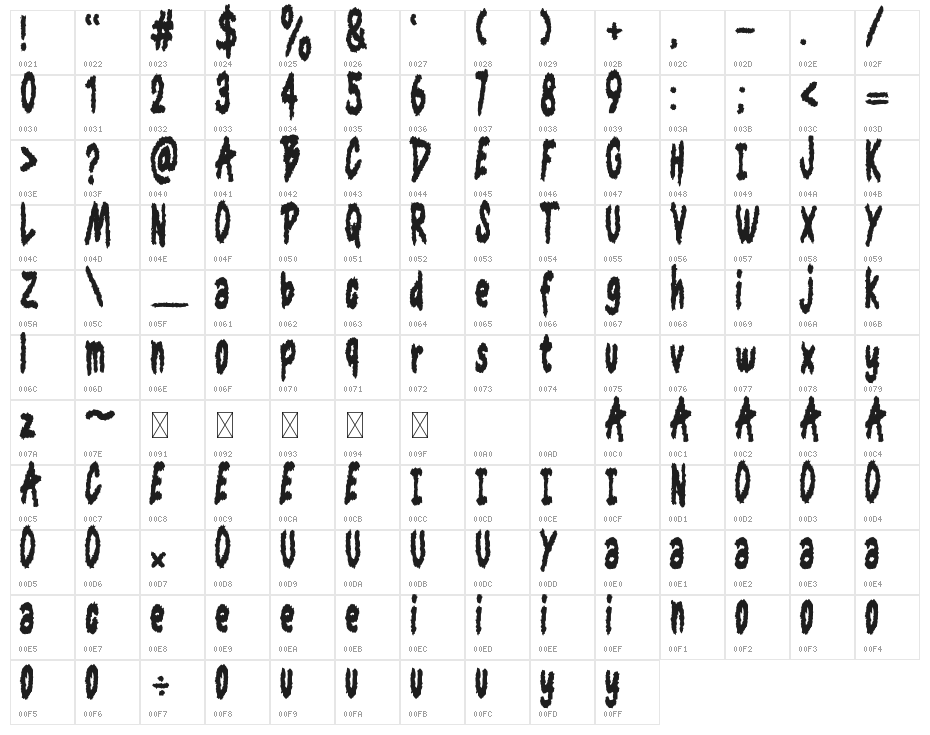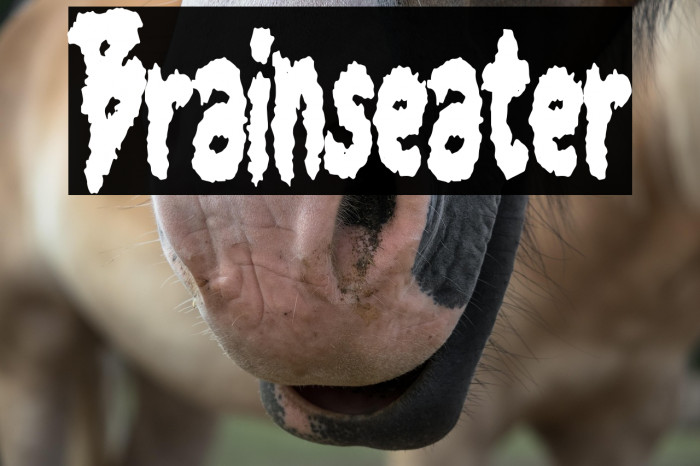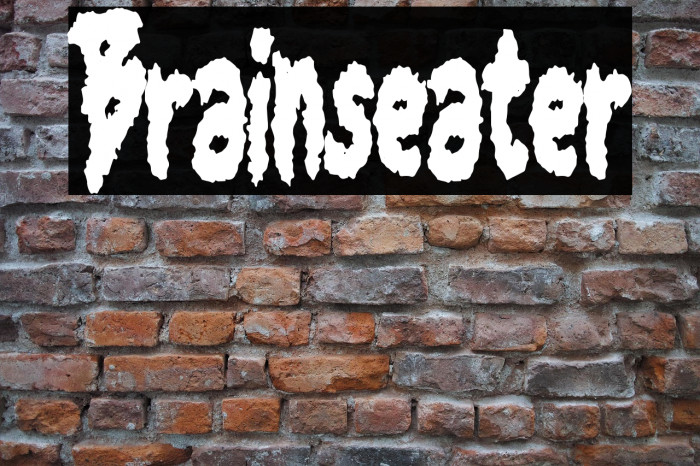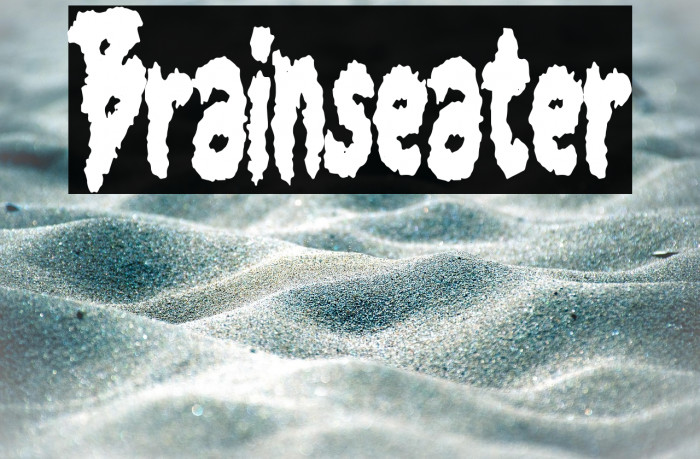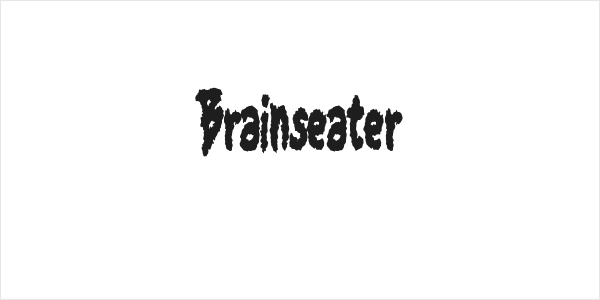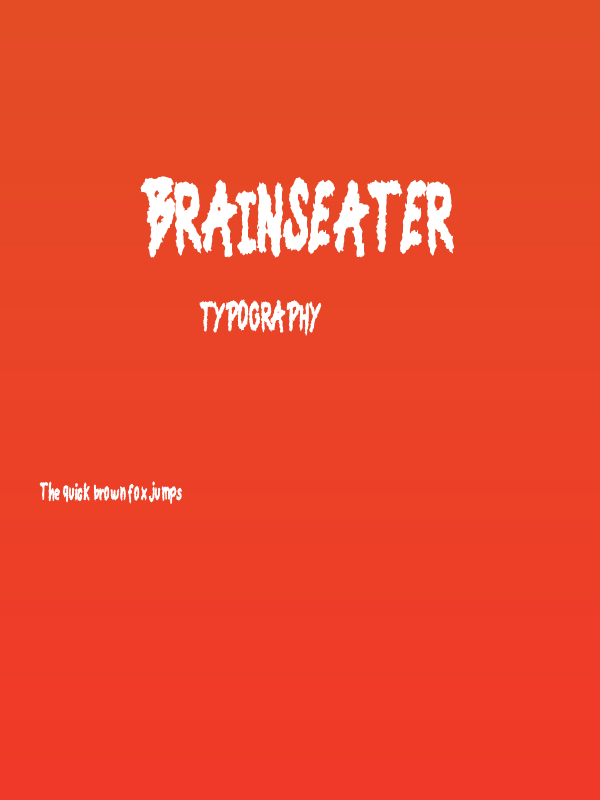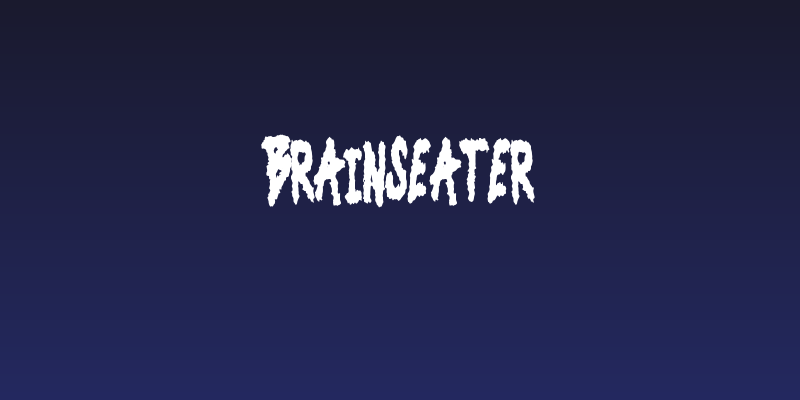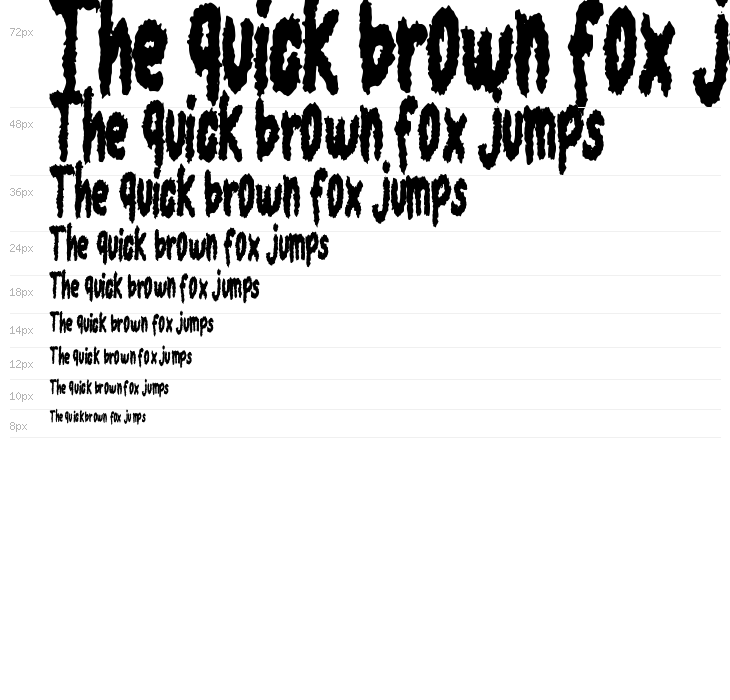
Brainseater Font
Brainseater Description
This font features an irregular, jagged design that gives it a chaotic and edgy appearance. The characters are bold and have a rough, textured look reminiscent of torn paper or dripping paint. Each letter and number appears to be hand-drawn, contributing to its unique and artistic style. The font's uneven edges and varying stroke thicknesses create a sense of movement and energy, making it stand out in any design. Its distinctive appearance is ideal for projects that require a bold and unconventional aesthetic.
Use CaseHeadlines, Posters, Artistic Designs
Proposed ProjectsIdeal for horror-themed posters, edgy album covers, graffiti art, and rebellious branding.